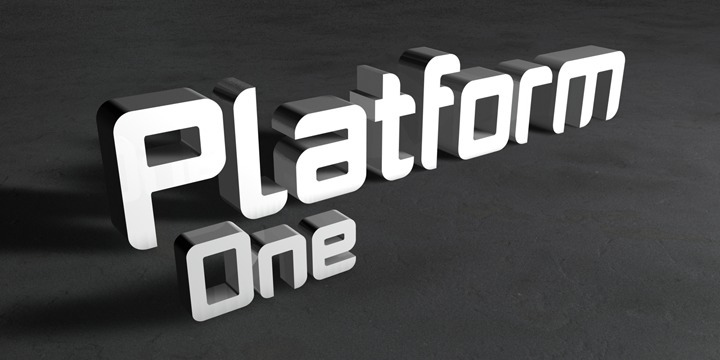
PlatformOne Font
PlatformOne Font is perfect for technology startup branding, gaming interfaces, software applications, digital platform logos, e-commerce websites, mobile app designs, tech conference materials, coding bootcamp graphics, cybersecurity company branding, and innovative product launches. This cutting-edge typeface excels in applications where technological advancement, digital innovation, and futuristic aesthetics are core brand elements.
What makes PlatformOne Font exciting is its distinctive digital-inspired architecture that perfectly captures the essence of modern technology platforms while maintaining exceptional functionality. The font features precisely engineered letterforms with strategic geometric elements that create a sense of connectivity and systematic organization. Its contemporary design language speaks directly to tech-savvy audiences while ensuring optimal performance across various digital environments and screen resolutions.
The PlatformOne Font family typically includes multiple weights from Light to Bold, often accompanied by condensed variations that maximize space efficiency in interface designs. Many versions feature monospaced alternatives, special coding characters, and technical symbols that make it particularly valuable for developer-focused applications. Some collections include display variants with enhanced stylistic features and decorative elements that amplify its technological character for headline applications.
Whether you're launching a new software platform, designing user interfaces for innovative applications, or creating marketing materials for tech companies, PlatformOne Font Free Download provides the digital sophistication that modern technology brands require. Its systematic approach makes it ideal for creating cohesive design systems across multiple touchpoints. The font's ability to convey both technical precision and approachable functionality makes it particularly valuable for platforms seeking to balance professional credibility with user-friendly accessibility in competitive technology markets.